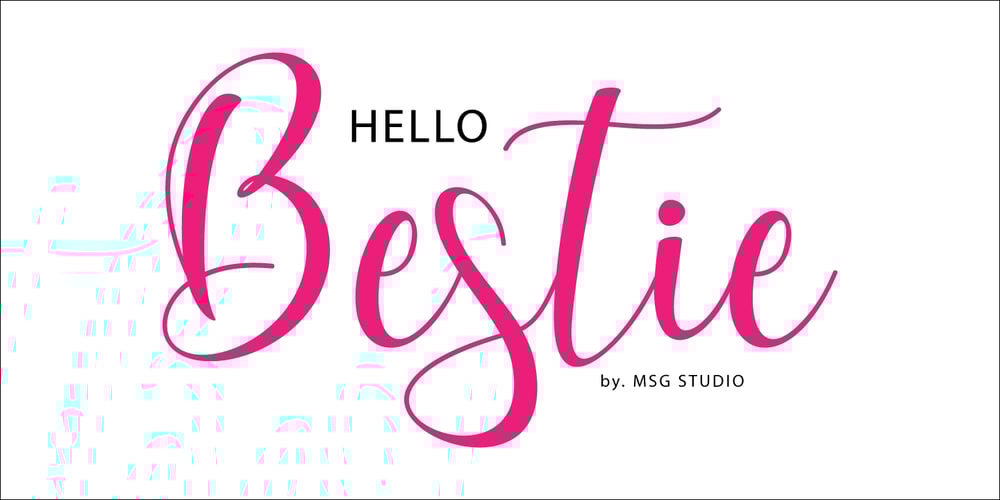
Hello Bestie
Hello Bestie font
Hello Bestie Font Family was designed by Fajriadi Fajriadi, Fajriadi and published by Masinong Studio. Hello Bestie contains 1 styles and family package options. IntroducingHello Bestie modern script with a handmade calligraphy style, decorative characters and a dancing baseline! So beautiful on invitation like greeting cards, branding materials, business cards, quotes, posters, and more!!Hello Bestie come with 435+ glyphs. The alternative characters were divided into several Open Type features such as Swash, Stylistic Sets, Stylistic Alternates, and Ligature. The Open Type features can be accessed by using Open Type savvy programs such as Adobe Illustrator, Adobe InDesign, Adobe Photoshop Corel Draw X version, And Microsoft Word. And this Font has given PUA unicode (specially coded fonts). so that all the alternate characters can easily be accessed in full by a craftsman or designer.Hello Bestie Features :Uppercase & Lowercase International Languange & Symbols Support Punctuation & Number PUA Unicode Range Standard Ligatures Discretionary Ligatures Stylistic Alternates Stylistic Set 1-13:If you don’t have a program that supports OpenType features such as Adobe Illustrator and CorelDraw X Versions, you can access all the alternate glyphs using Font Book (Mac) or Character Map (Windows).Thank You for purchase!